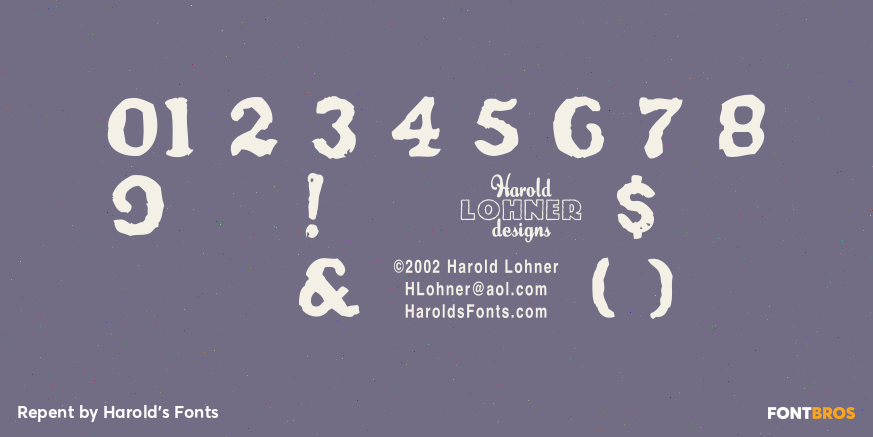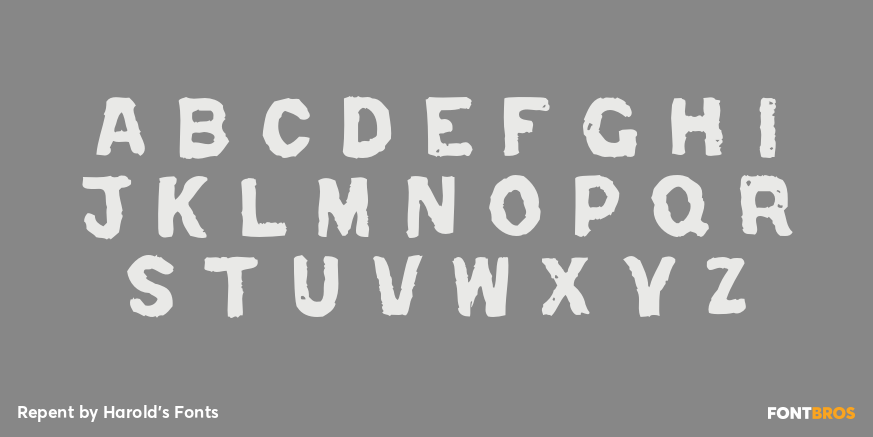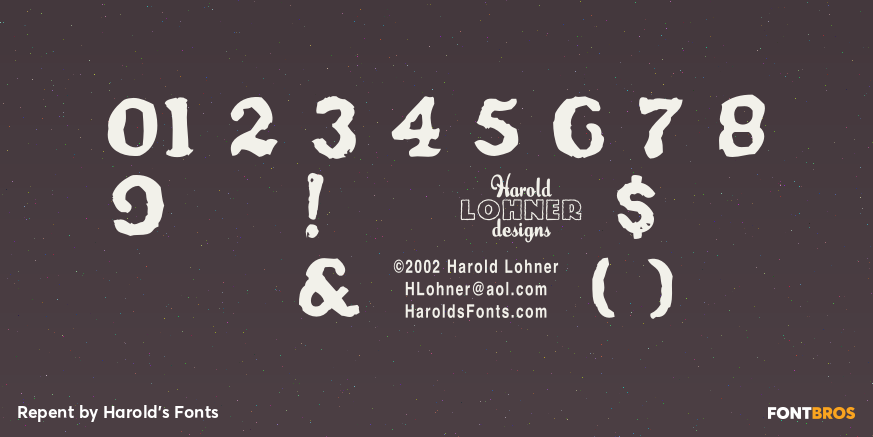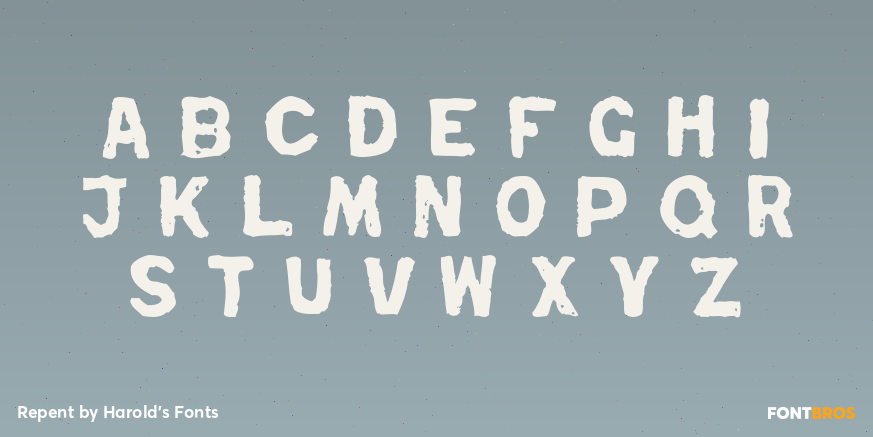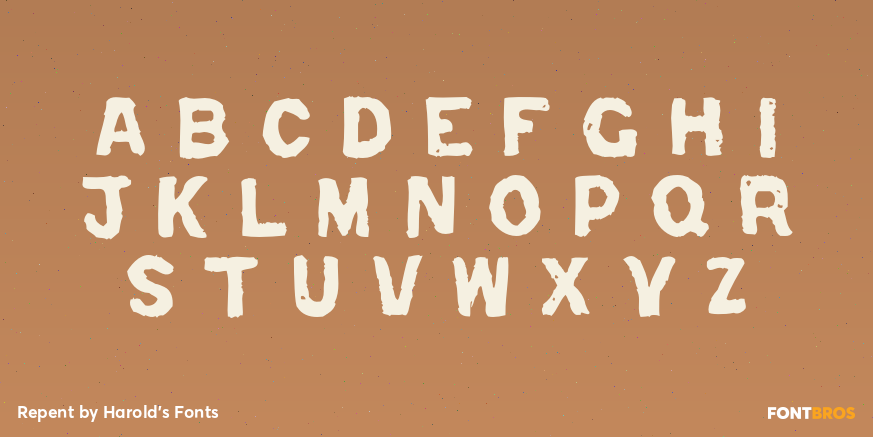
Repent
Font Family by Harold's Fonts
REPENT is a bold and rustic font. It was inspired by the work of Jesse Howard (1885-1983), a folk/outsider/naive artist. What is striking to me about Howard's work is the intense effort contained in his paintings-as-rants, and the overall texture of their deliberate lettering. Howard's work can be seen in the collection of the Kansas City (MO) Art Institute. There are 2 versions of each letter for a more hand-painted feel.